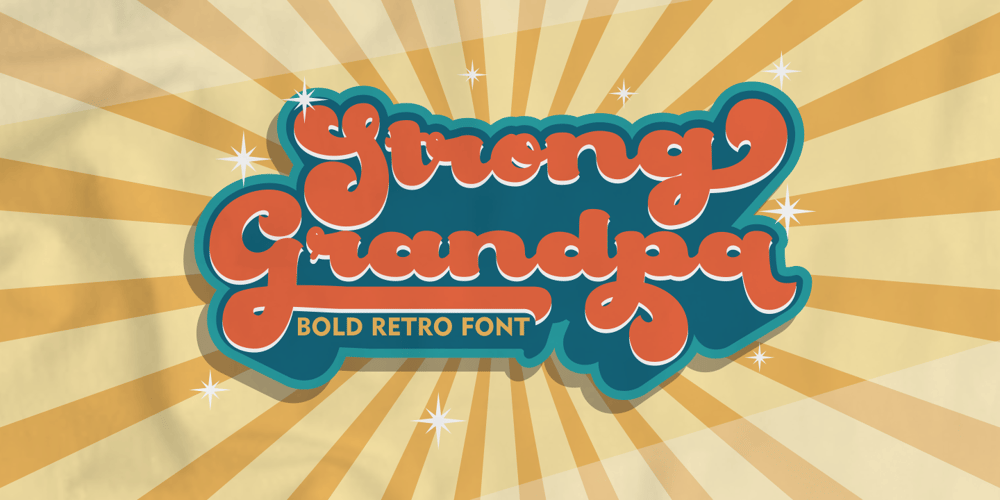
Strong Grandpa Font Family was designed by Putra Novembria Candra Kusuma and published by Putracetol. Strong Grandpa contains 1 styles and family package options. Introducing Strong Grandpa, a super bold retro script font which will bring back to 60s – 70s fell. Inspired from retro typography and lettering in the 60’s and 70’s combine with bold typography style. it’s great for any project that needs a retro vibe or vintage touch.Strong Grandpa is perfect for vintage and retro design, badge, logos,t-shirt, poster, branding, title, heading, packaging, signage, book coverand so much more!